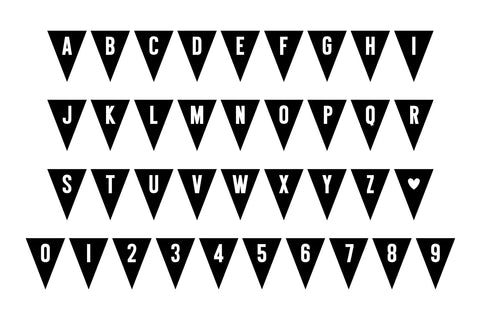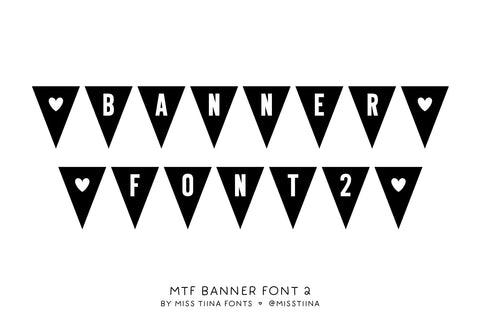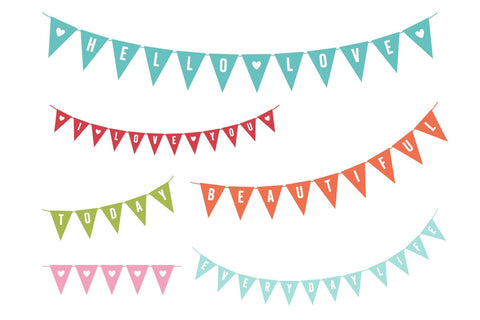
MTF Banner Font 2
Create instant banners by typing on paths with this banner font! Simply draw a vector curve and type your own message along the path OR use one of the 6 FREE paths (with 'strings') that are included.
♥ To get the heart pennant to show - type exclamation !